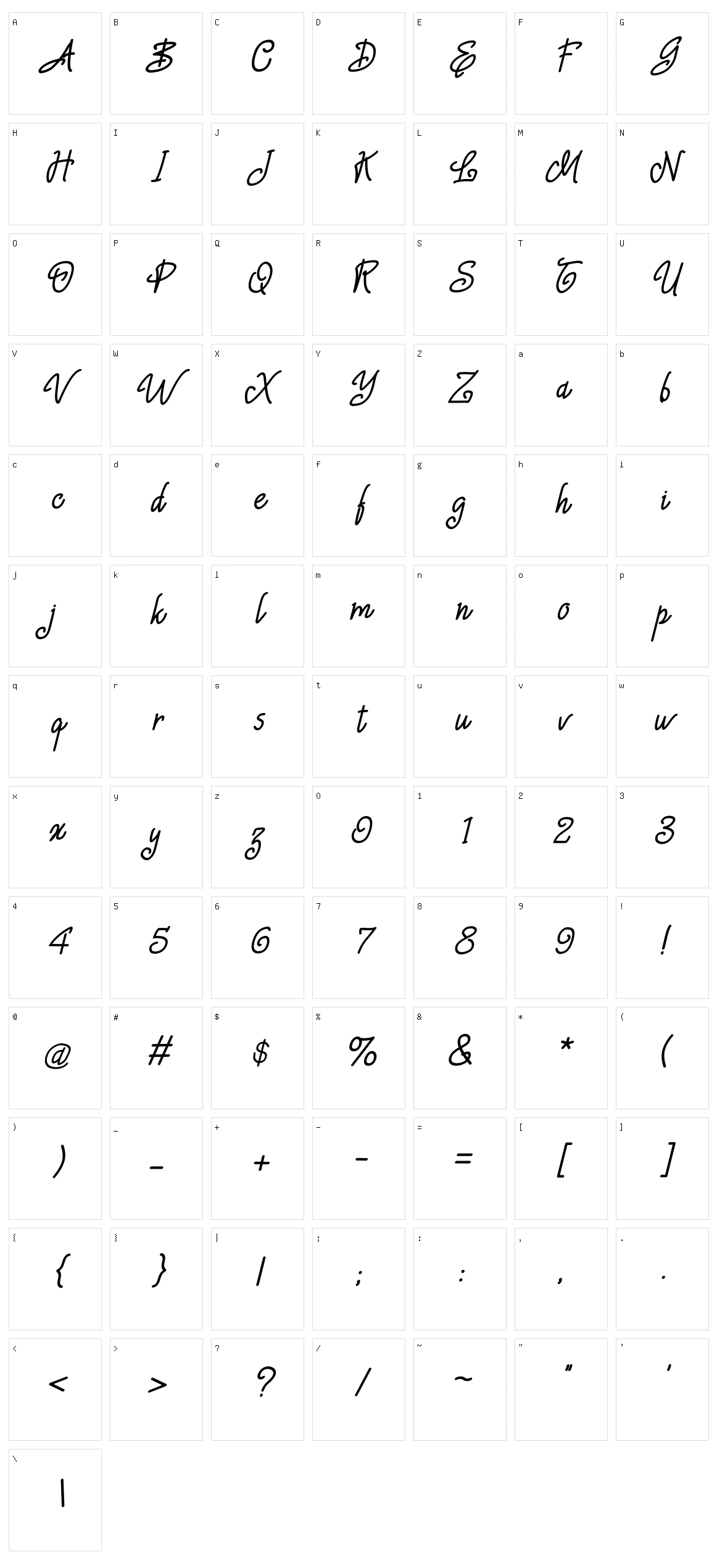
The free font Baby Sophia is carefully designed by Qaratype2, showcasing a thoughtful balance of creativity and usability and falls under the Script font style. When you download the ZIP file, it contains only 41.88 KB of font files, making it lightweight and quick to download. Please review the license details below to understand permitted usage and distribution rights. If license information is not available, we recommend using this font for personal projects only or contacting the author directly for commercial usage permissions.